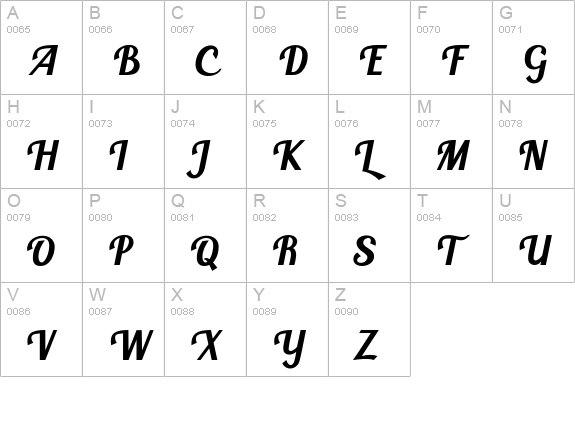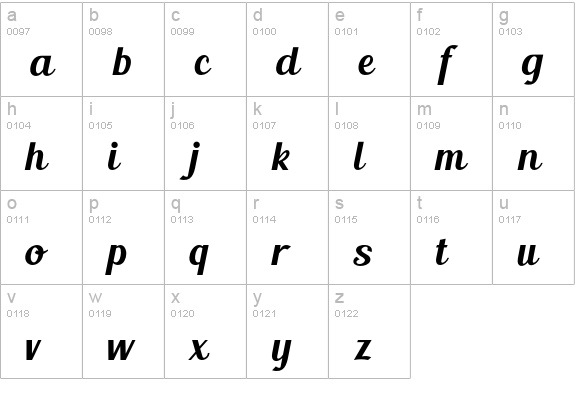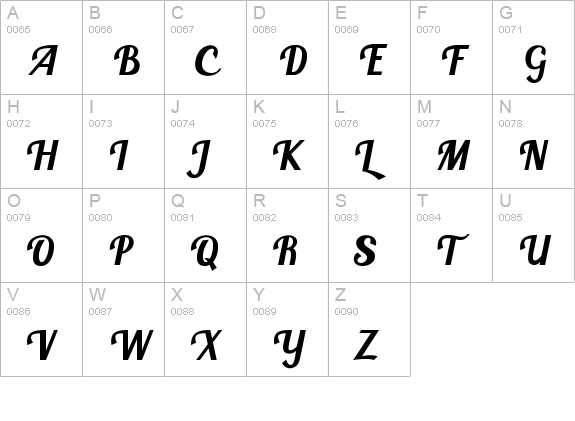
Blenda Script font is a captivating and versatile typeface that exudes elegance and sophistication. Its flowing and organic letterforms are imbued with a sense of vintage charm and timeless beauty. With its unique combination of bold strokes and delicate curves, Blenda Script font effortlessly captures attention and brings a touch of class to any design project. This exquisite script font is perfect for a wide range of applications, whether it be branding, packaging, logos, invitations, or any creative endeavor that requires a touch of artistic flair. Its versatility allows it to adapt to various design styles, from traditional to contemporary, making it a go-to choice for designers and creatives alike. What sets Blenda Script font apart is its accessibility. This remarkable font is available for free download at FontsMarket.com. Yes, you read that right - it's free! This means that you can elevate your designs without breaking the bank. Blenda Script font gives you the opportunity to add a touch of elegance and sophistication to your projects without any cost. When you choose Blenda Script font, you're not only getting a beautiful typeface, but you're also joining a community of designers who appreciate quality and affordability. So why wait? Download Blenda Script font today and unlock the potential to create stunning designs that are sure to leave a lasting impression.